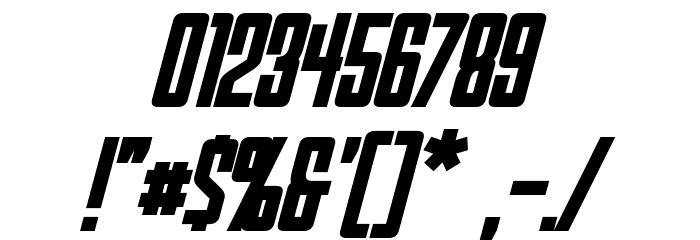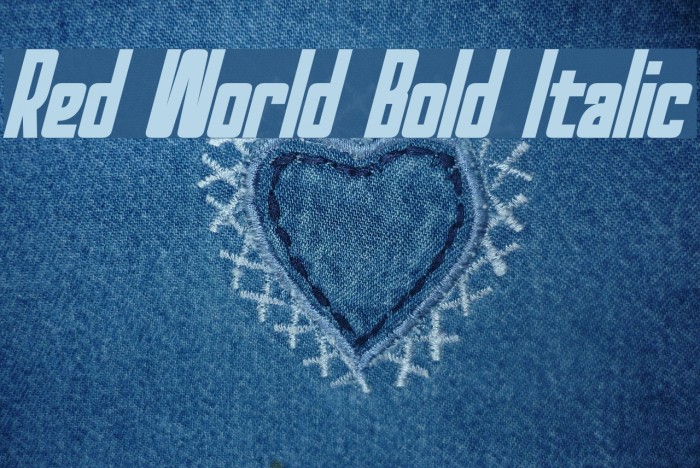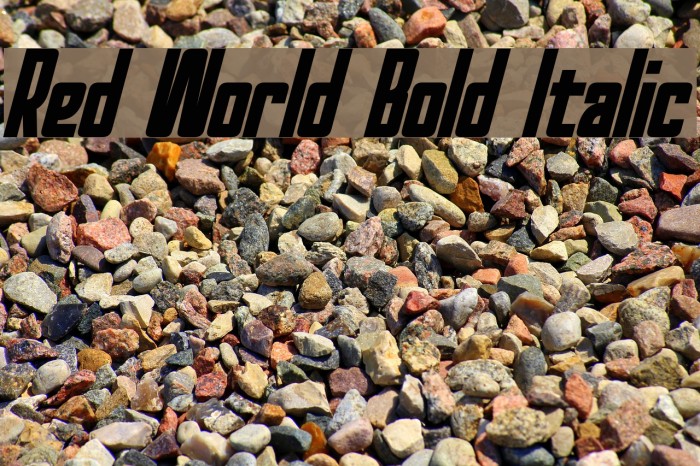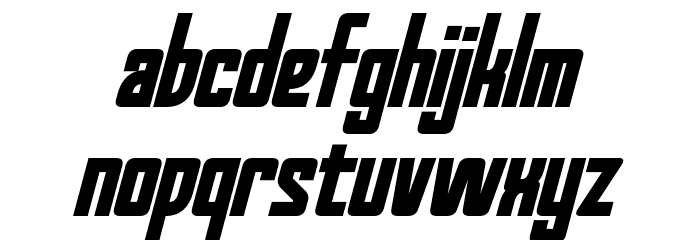
Red World Bold Italic Font
This font features a bold and italicized style with a strong, dynamic presence. The characters are slanted, giving a sense of motion and energy. The strokes are thick and consistent, providing a robust and impactful appearance. The uppercase and lowercase letters maintain a uniform width, contributing to a cohesive look. The numerals and special characters are designed to match the boldness and slant of the alphabet, ensuring a harmonious overall design. This font is ideal for projects that require a bold statement, such as sports branding, dynamic posters, or modern advertising.
A bold, italicized font with a dynamic and energetic style.
• Proposed Projects: Sports branding, dynamic posters, modern advertising, and impactful headlines.
• Category: Sans-Serif
• Bold: Yes
• Italic: Yes
• Weight: Bold
• Width: Normal
• Character Spacing: Normal
• Contrast: Low
• Overall Style: Modern
• Use Case: Headlines, Logos